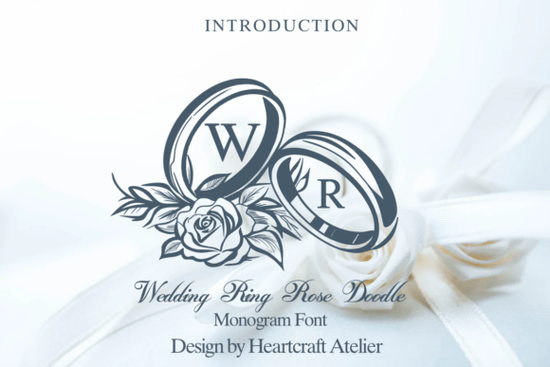
If you're designing wedding stationery, anniversary gifts, or boutique jewelry tags and want a font that feels personal, hand-drawn, and meaningfully romantic the Wedding Ring Rose Doodle Font is a thoughtful choice. It’s not just another decorative font; it’s built around a cohesive visual idea: two interlocking wedding bands wrapped with soft, sketched roses and trailing leaves. That makes it especially useful if you’re creating monograms, engraved keepsakes, or custom invites where symbolism matters as much as legibility.
What kind of projects does this font work best for?
This font shines in contexts where warmth and intentionality matter more than flashy trends. Think of it as a quiet alternative to overused script fonts ideal when your client wants something that feels handmade but still prints cleanly. Because the design is vector-based, it scales beautifully for both tiny charm tags and large event signage. You’ll find it especially helpful for:
- Custom wedding monograms (on invitations, napkins, or foil-stamped programs)
- Luxury anniversary gift engravings like on wooden boxes, glassware, or metal bookmarks
- Small-batch jewelry labels or packaging for independent makers
- Digital overlays for “first look” photos or vow ceremony slides
- Family heritage branding think heirloom recipe books or personalized birth announcements
It’s also a smart pick if you sell print-on-demand items. The clean lines hold up well on fabric, ceramic, and acrylic surfaces, and the rose-and-ring motif reads clearly even at smaller sizes unlike some overly intricate doodle fonts that blur or lose detail when resized.
How is it different from other wedding-themed fonts?
Most “romantic” fonts lean heavily into cursive scripts or ornate flourishes but those can be hard to read or difficult to pair with supporting text. The Wedding Ring Rose Doodle Font avoids that by anchoring its decoration in a balanced frame: the rings form a natural border, while the roses grow organically within that shape not bleeding out or overwhelming the letterforms. That structure gives you flexibility: use the full monogram frame, or pull just the floral elements as standalone SVGs (included in the download). You’ll also get alternate characters and ligatures, so “MR & MRS” or “EST. 2025” can feel intentional, not tacked on.
Unlike many decorative fonts sold as single-weight downloads, this one includes light, regular, and bold weights so you can layer text without switching to a completely different typeface for headings or captions. That saves time when building consistent brand kits for couples or small businesses.
Who’s using it and why does it fit real workflows?
We’ve seen crafters use it to hand-letter digital mockups before printing on kraft paper invites. Print-on-demand sellers apply it to mugs and coasters because the vector outlines stay crisp even after repeated resizing in Canva or Adobe Express. Jewelry makers embed the ring-and-rose frame into laser-cut wood tags then add names or dates in the center using the included OpenType features. One small stationery studio told us they now offer it as a “signature style” option for clients who want their suite to feel like a family heirloom, not just an event kit.
If you’re working with clients who care about symbolism like choosing roses for love, rings for commitment, and hand-drawn lines for authenticity this font quietly supports that story instead of competing with it. You won’t need to explain the meaning behind it; people recognize it intuitively.
Tip: Before finalizing a layout, test how the font renders at 12 pt and 36 pt in your editing software. Some decorative fonts shift spacing or hide alternates unless you enable OpenType features this one works smoothly out of the box, but checking ensures consistency across devices.
Before you download, ask yourself:
- Do I need a font that works equally well for engraving, printing, and digital overlays?
- Will my clients appreciate symbolic details (rings + roses) without needing extra explanation?
- Am I looking for something that pairs easily with simple sans-serifs or classic serifs not just other scripts?
- Do I prefer vector-based doodle fonts that scale cleanly instead of rasterized PNGs?
If you answered “yes” to most of those, this is likely a solid addition to your working font library not just for weddings, but for any project where sincerity and craftsmanship matter.